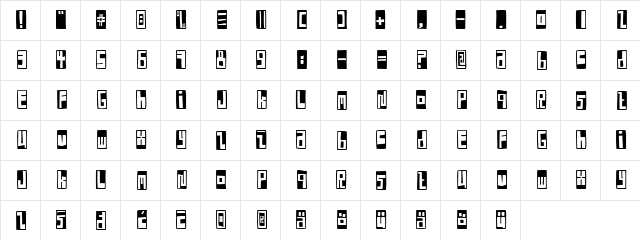
Box Font Negative Regular
Design Context for Box Font Negative Typeface
Box Font Negative is a composed and adaptable typeface that performs quietly and consistently across a wide range of design contexts.